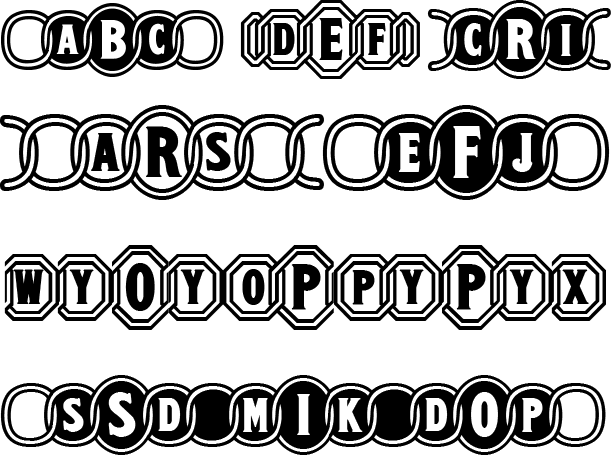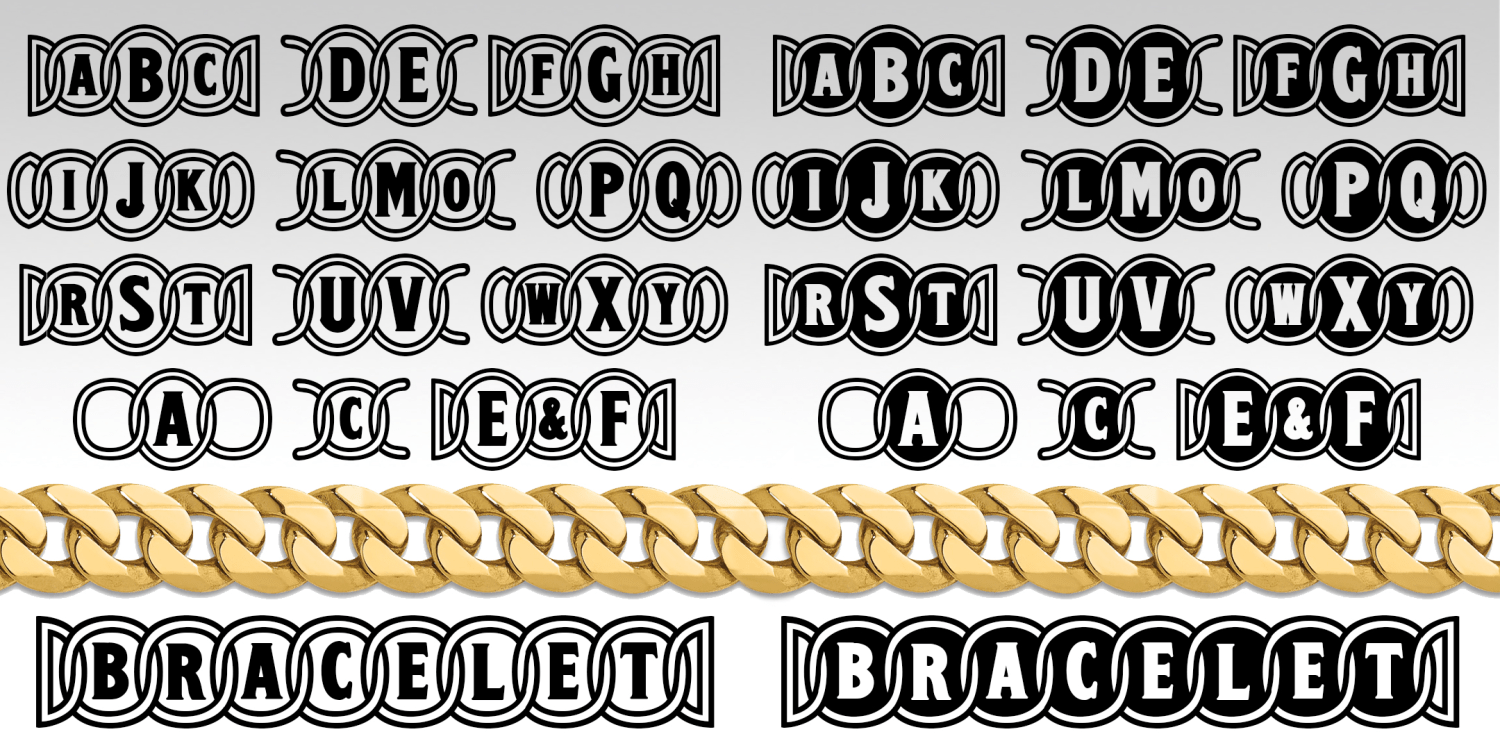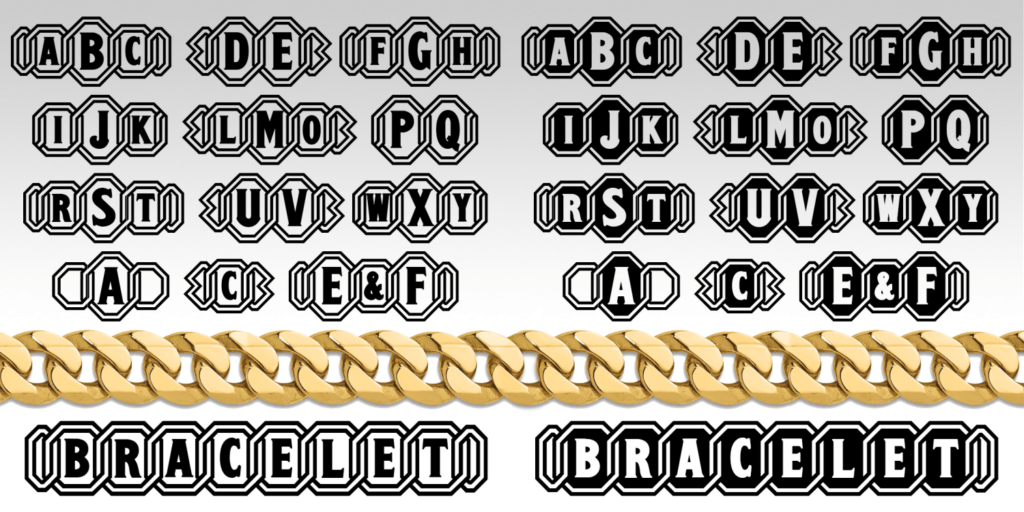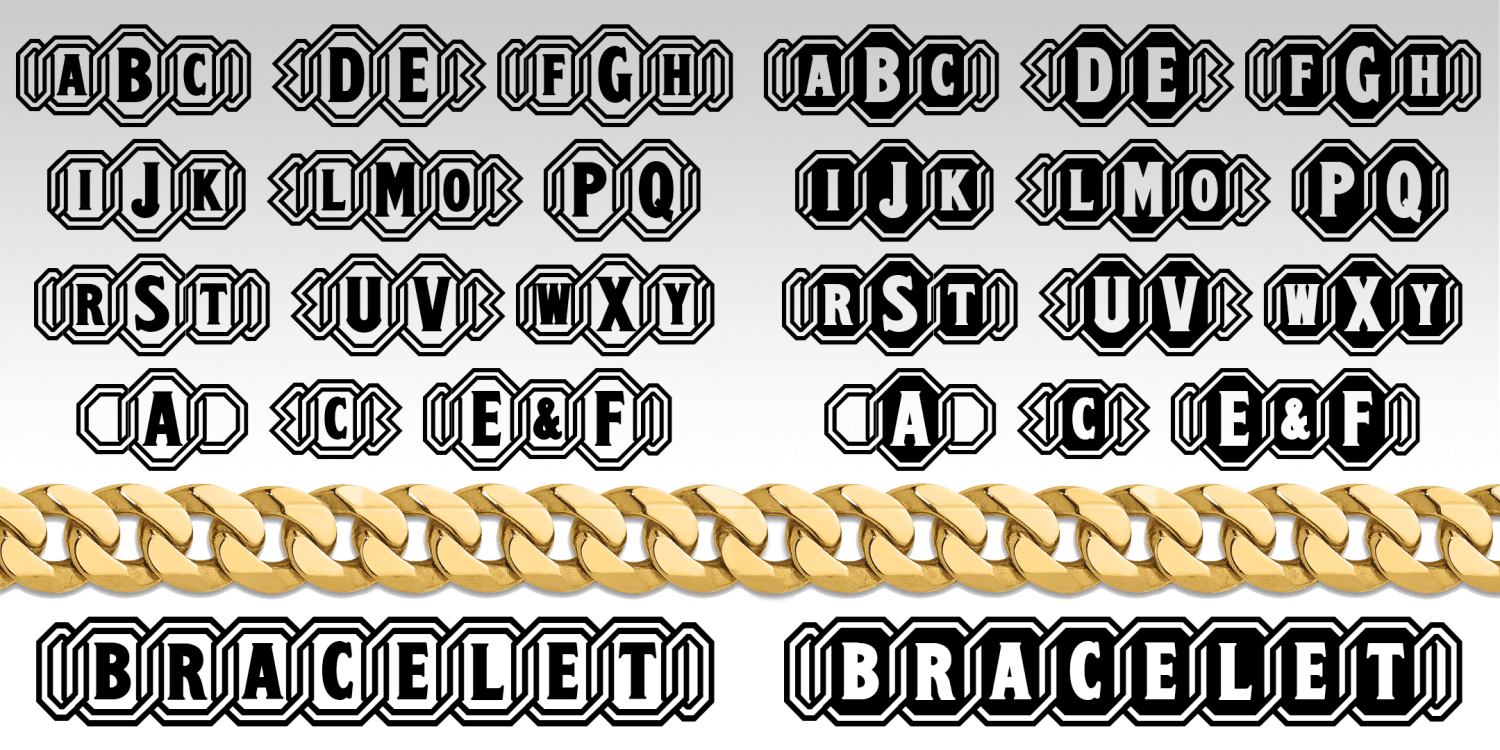
Bracelet Monograms
About Bracelet Monograms
The Bracelet Monograms set of 8 fonts lets you create custom monograms or linking text, in oval or octagonal letters, with black and white backgrounds and a variety of decorative end pieces. Inspired by the analog font "Tableau" as reproduced…